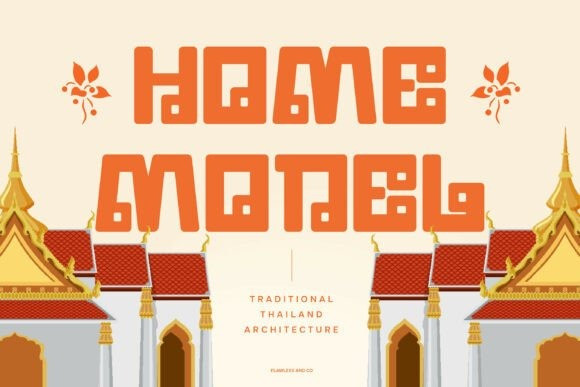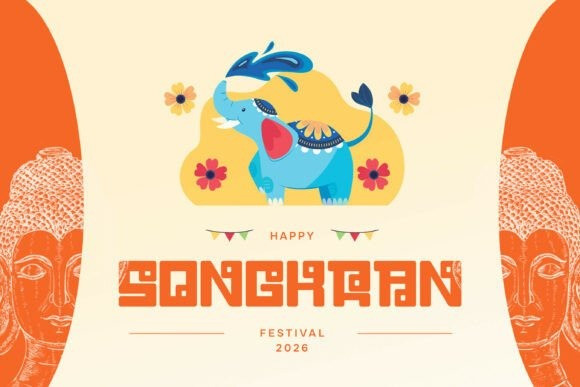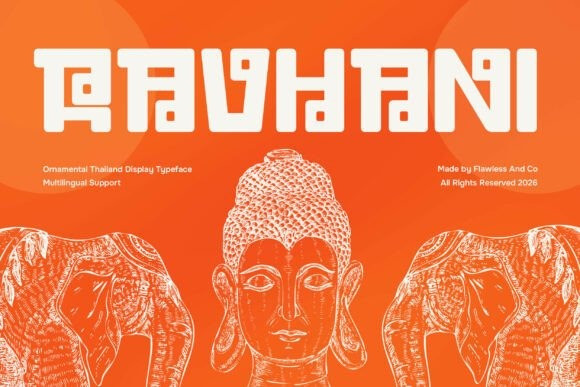
RAVHANI FONT
RAVHANI FONT is an ornamental Thailand display font that showcases rich cultural beauty through intricate details and artistic letterforms. Inspired by traditional Thai aesthetics, this typeface features decorative elements, bold curves, and distinctive shapes that create a visually captivating and expressive design. Crafted to stand out, Ravhani brings a unique ornamental style that enhances the character of any composition.